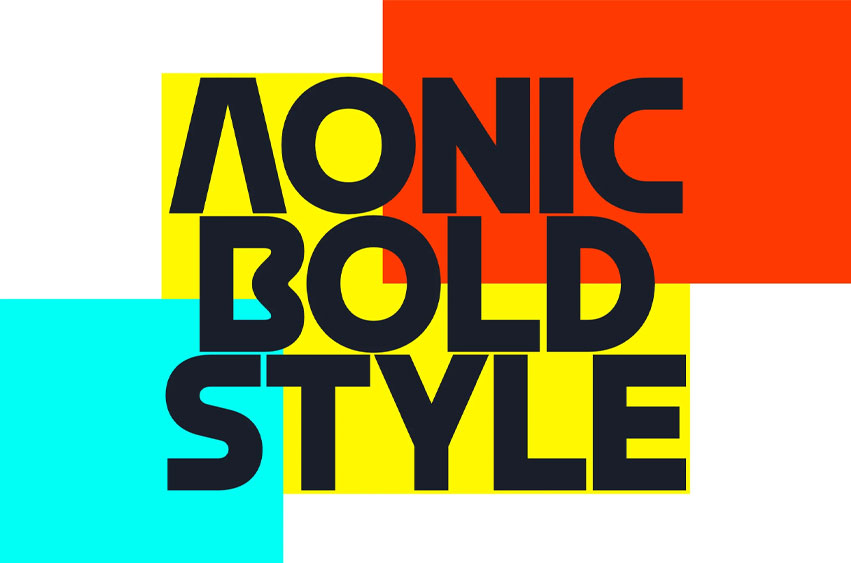
Aonic Bold Font
Aonic Bold Font is a futuristic sans serif that merges geometric precision with a refined, minimalist structure. Designed with a clean and controlled form, it delivers a sharp visual presence while remaining highly adaptable across different design contexts.
Its clarity and balanced proportions ensure excellent legibility in both print and digital environments—from branding and editorial layouts to interfaces and display use. Aonic is built to perform consistently, whether used for bold headlines or structured compositions.
With extended language support, including Cyrillic, Aonic enables seamless global communication without sacrificing its distinctive character.
Aonic is where modern clarity meets deliberate design—crafted to elevate contemporary visual systems.